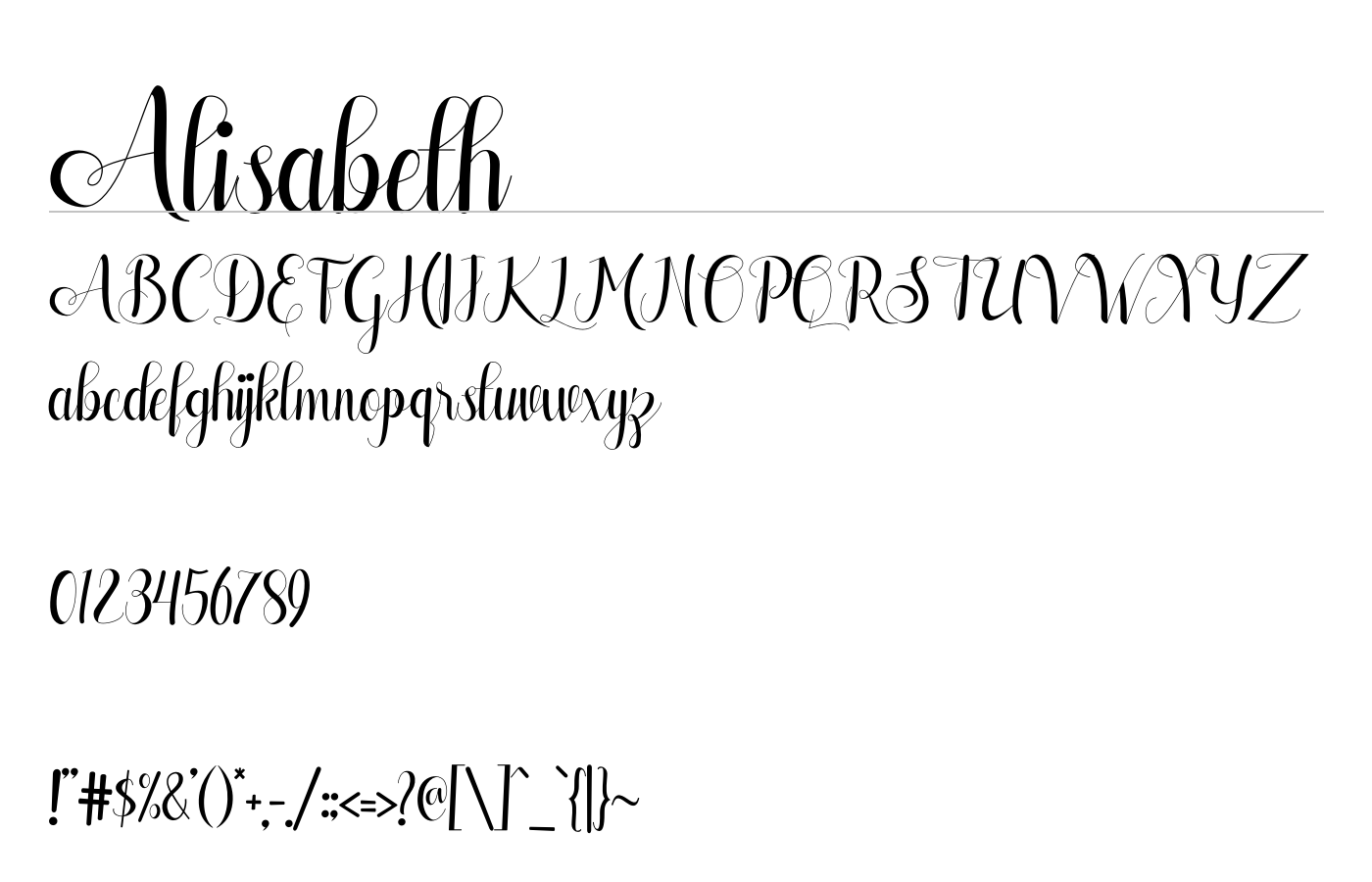
Alisabeth is an elegant, modern script font characterized by its tall, slender letterforms with high contrast between thick and thin strokes. Its flowing, decorative swashes and delicate curves give a sophisticated and stylish look, making it ideal for luxury branding, wedding invitations, and upscale editorial design where a refined, graceful touch is desired. This font works best in headlines or logos where its detailed flourishes can shine without compromising readability.
Alisabeth Font
About Alisabeth Font
| Font family | Alisabeth Font |